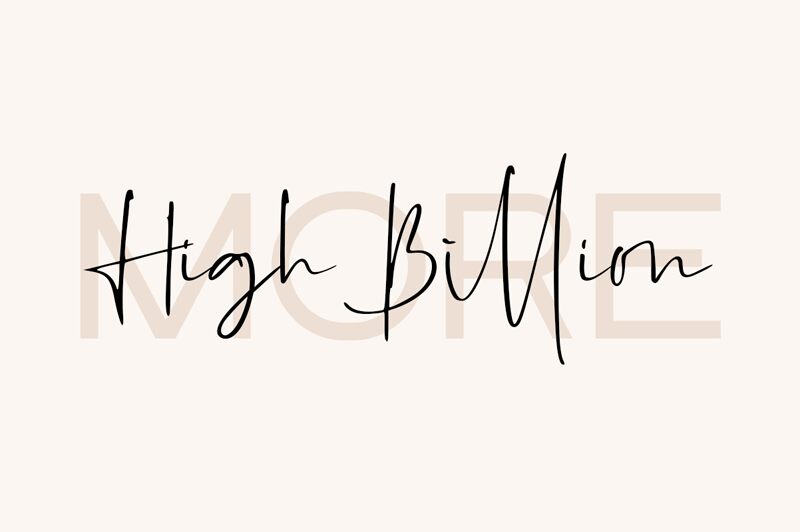
High Billion 2 Italic is a stunning handwritten font from Sarwo Edhi Prayitno that exudes an air of elegance and sophistication. With its extra-light weight and graceful curves, this font is perfect for projects that call for a touch of refinement, such as wedding invitations, luxury branding, or high-end product packaging. Whether you're looking to add a touch of class to your next project or simply want to make a statement with your typography, High Billion 2 Italic is the perfect choice. So why settle for ordinary when you can elevate your designs with this exquisite typeface?
High Billion 2
High Billion 2 Italic
Sarwo Edhi Prayitno